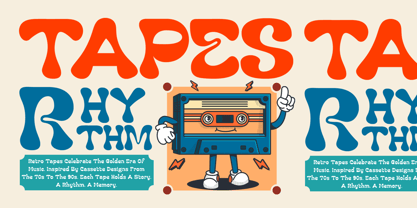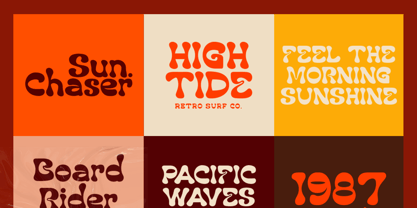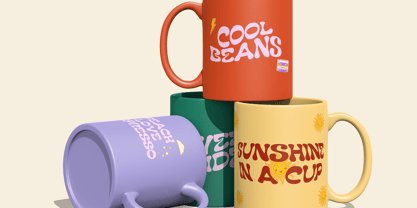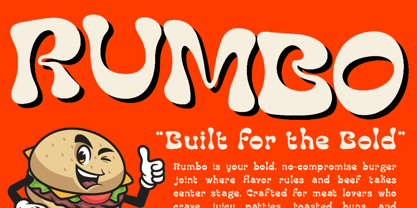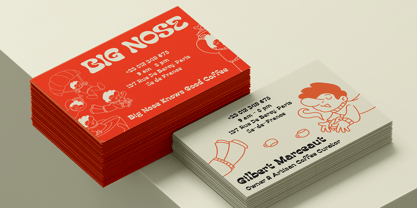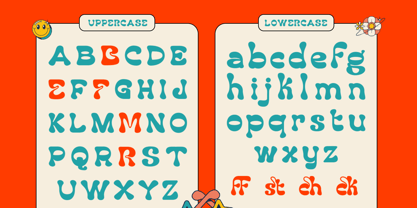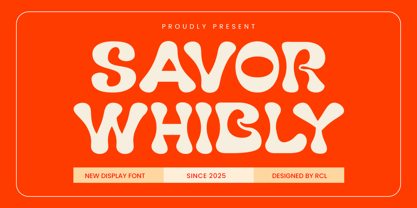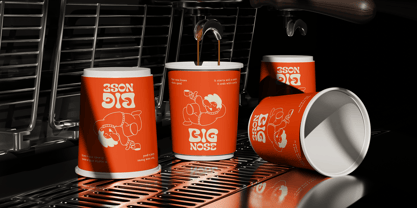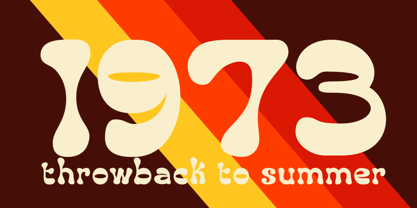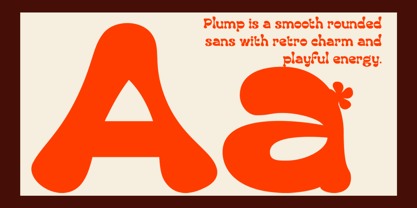
Savor Whibly
by Jafar07
The Savor Whibly Font Family was designed by Bakhrudin Ja'far and published by Jafar07. Savor Whibly contains 2 styles and family package options. More about this family
Savor Whibly is a uniquely shaped modern display font that radiates energy, creativity, and character. Its soft curves, quirky forms, and retro-inspired structure offer a bold yet friendly feel that instantly grabs attention. Designed to break the mold, Savor Whibly is perfect for creators who want their work to stand out with style and personality. From bold logos and expressive headlines to creative branding and editorial layouts, this font adds a playful twist to your design projects. Whether you're designing posters, flyers, children’s book covers, or packaging, Savor Whibly brings a cheerful, fun, and approachable tone to every visual expression. Its maximum visual impact makes it a reliable choice for anyone seeking both charm and uniqueness in one typeface. Savor Whibly is also a fantastic option for web banners, motion graphics, or any design that needs a spark of bold personality. Its versatility and vibrant rhythm make it ideal for both digital and print use, em
Designers: Bakhrudin Ja'far
Foundry: Jafar07